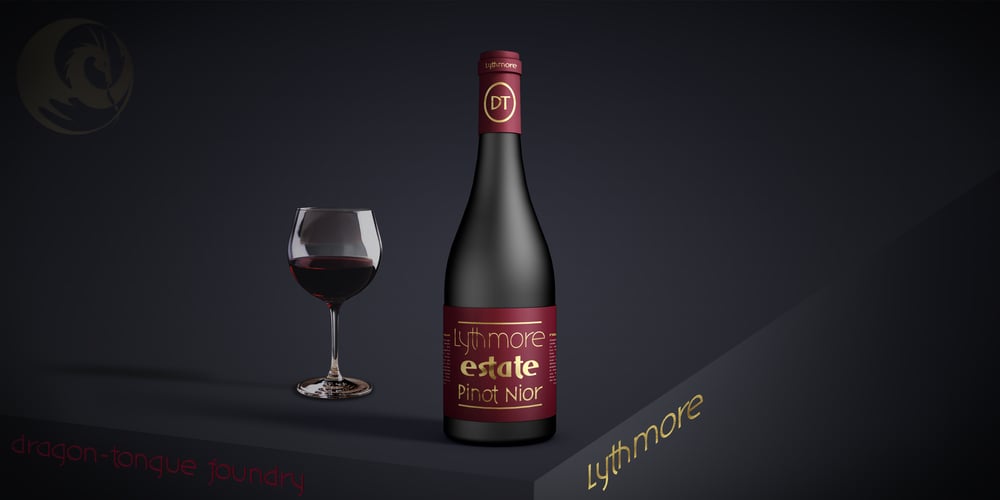
DT Lythmore Font Family was designed by Scott Spensley and published by Dragon Tongue Foundry. DT Lythmore contains 16 styles and family package options. LythmoreThis font is called Lythmore and is inspired by Lithos.Lithos was originally designed for Adobe by Carol Twombly in 1990, based it on the lettering from ancient Greek inscriptions.The Capitals are similar in feel and design, but is totally original and built from scratch.It is designed to be similar intentionally, but it is not a clone or rip off.Lithos is an example of a simple blocky san serif font style, with subtly concave sides, angled ends, and off centred curves.Lythmore is also an example of that same style. But is also different in places where I felt it could be improved. And it has a complete lower case set, which Lithos doesn’t. I built Lythmore with 8 different weights. Lythmore can be very effective when used in advertising and general display work, but it can also be used for much more.Although it was never designed to be body copy, when used as such, it is still perfectly readable and adds its own version of sans serif style and flavour.I have included two versions of the Lythmore family.Lythmore A and Lythmore B.In the Lythmore A family, the lighter 4 weights all vary in weight in both the horizontal and vertical axis. The heavier 4 weights all vary in the horizontal axis only.In the Lythmore B family, the transition is even in both directions across the entire family.The result of this difference is that the A and B versions difference is most noticeable between the Regular and Medium weights. While the extreme ends of each family version are virtually identical.